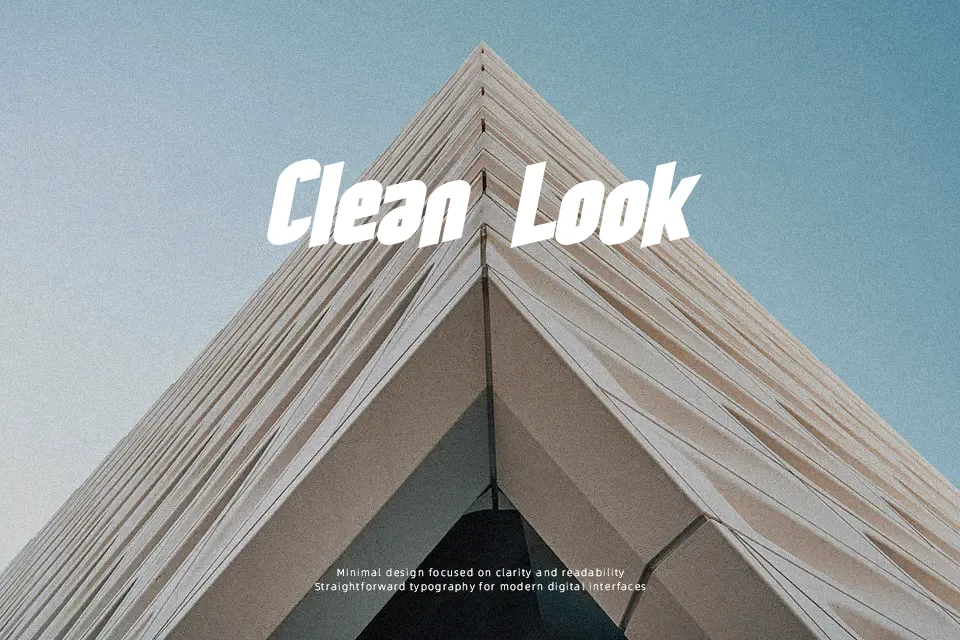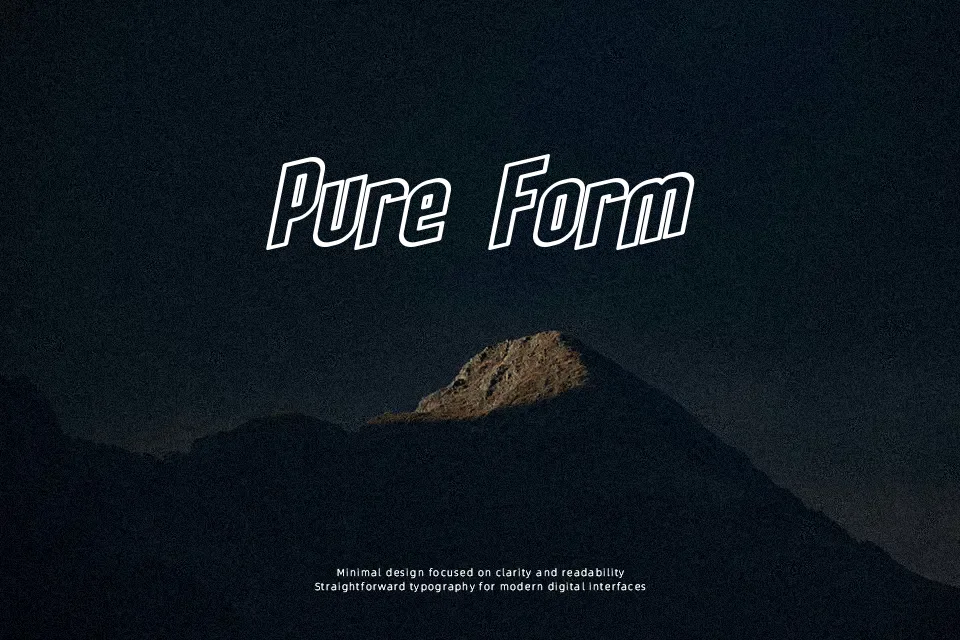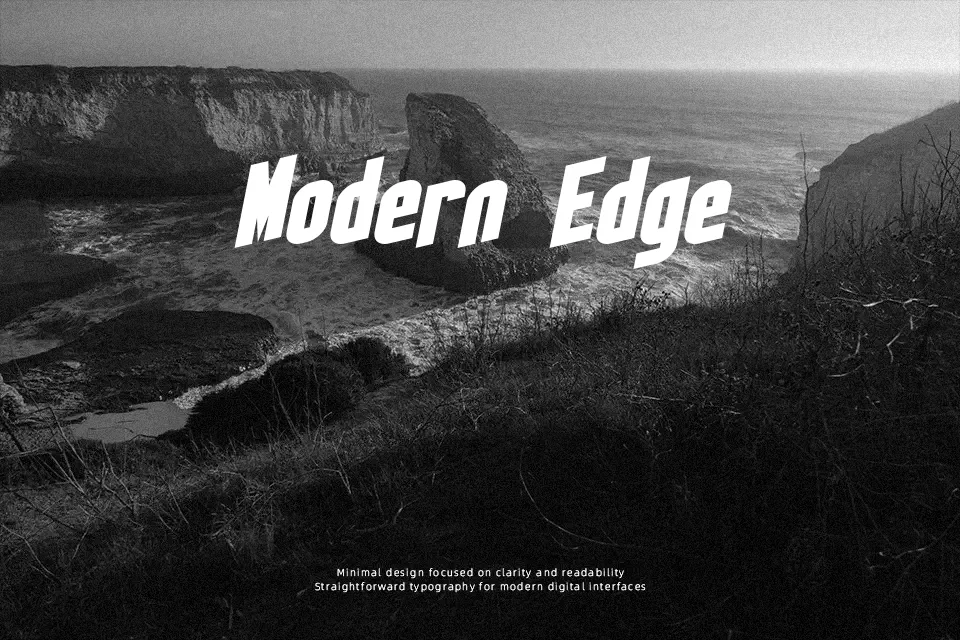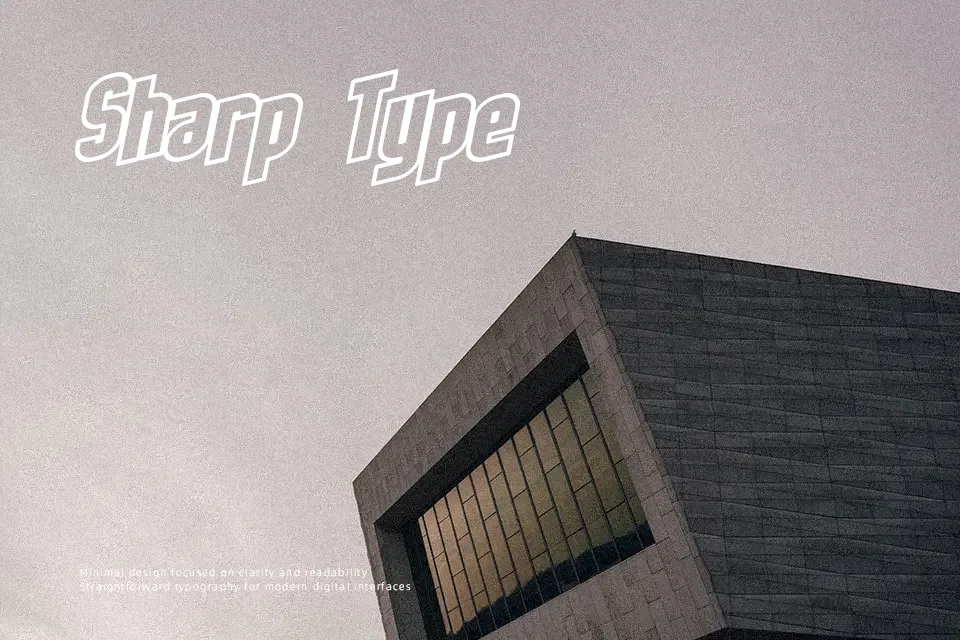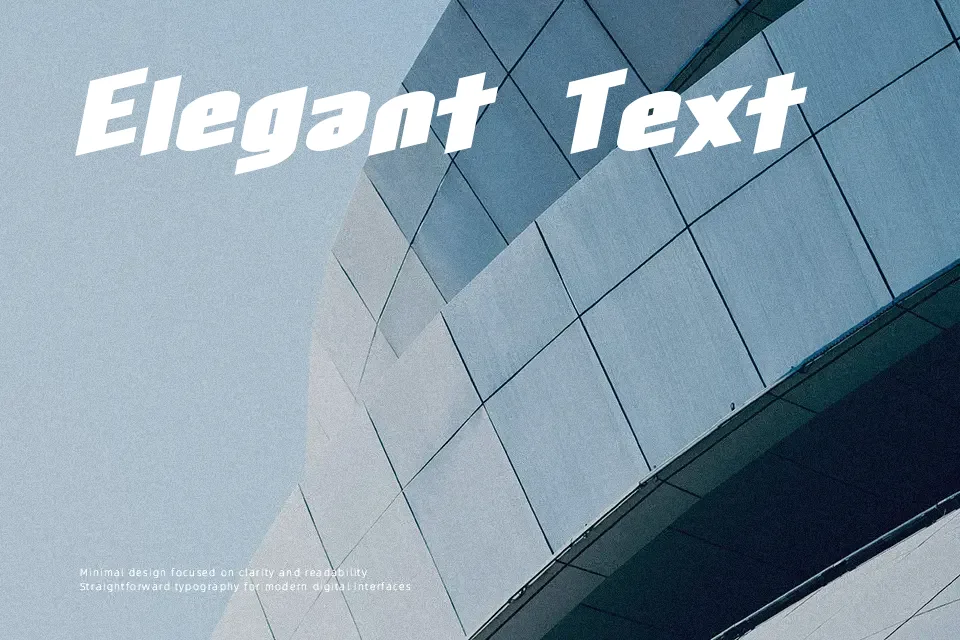
SF Obliquities Font
Designed by ShyFonts
SF Obliquities Font features pronounced forward slants paired with distorted geometric proportions and uniform stroke thickness. The characters display tight horizontal tracking and blocky terminals that produce an energetic, mechanical rhythm across display arrangements. High stroke density helps maintain character recognition in massive header scales, making the typeface well suited for esports branding, promotional banners, and sci-fi title sequences. However, the extreme obliqueness and compressed interior counters significantly diminish legibility when scaled down. The dense forms reduce reading comfort during continuous reading, making this design impractical for extended editorial paragraphs or compact user interface elements.
Best For: esports team logos, sci-fi movie posters, arcade game titles, event promo banners
Not Ideal For: body text paragraphs, mobile app interfaces, book typesetting, legal documents
Perfect for gaming, headline, and logo, with a bold and decorative style.